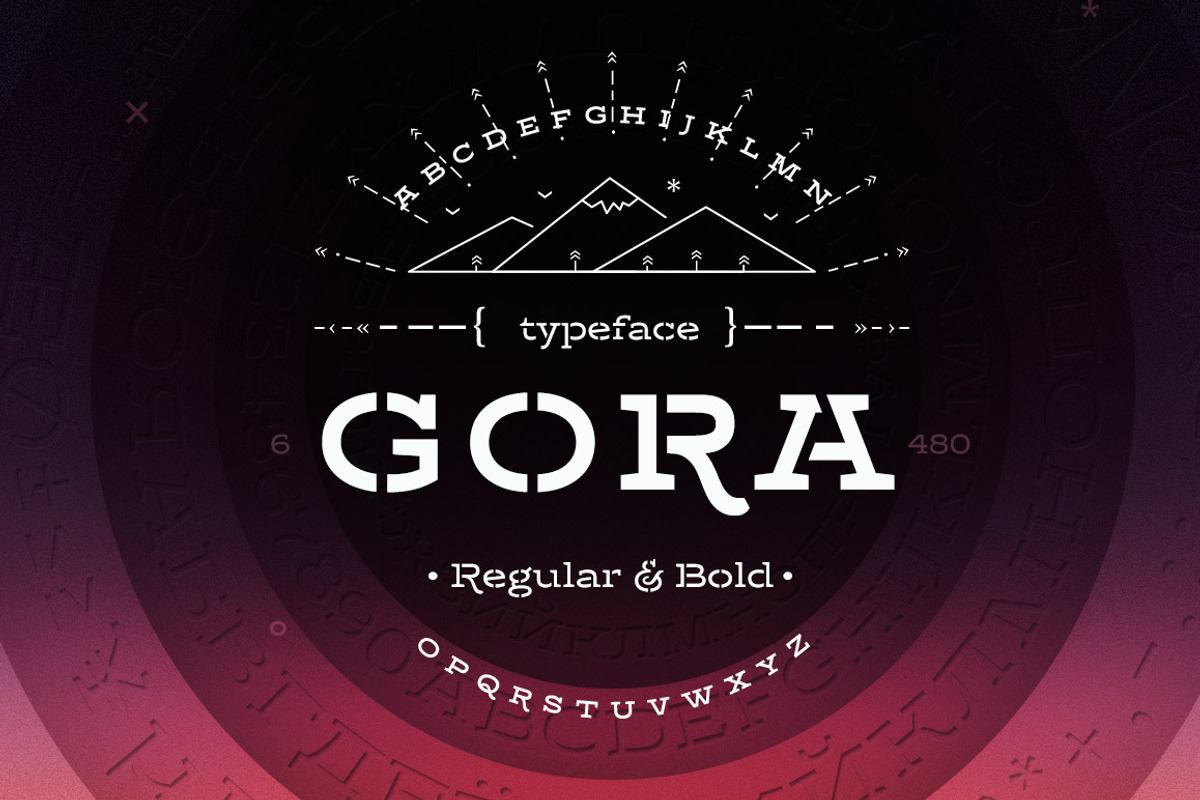
The Gora Stencil – Reg & Bold Font Free Download is a modern stencil-type font with both regular and bold versions, designed to add strength and impact to your designs. Perfect for headlines, posters, branding, product packaging, and more, this font brings a strong, industrial feel with its unique cut-out design.
With its clean lines and stencil-style details, Gora Stencil is ideal for designs that need to grab attention and make a statement. It includes uppercase and lowercase letters, numbers, punctuation, and multilingual support, ensuring versatility for a wide range of creative projects.